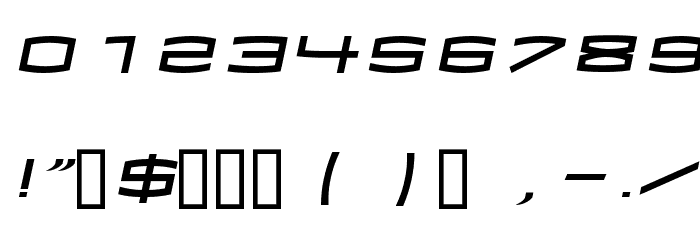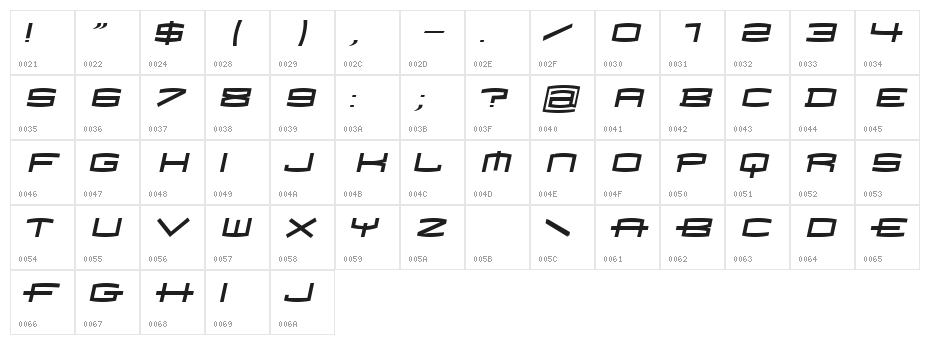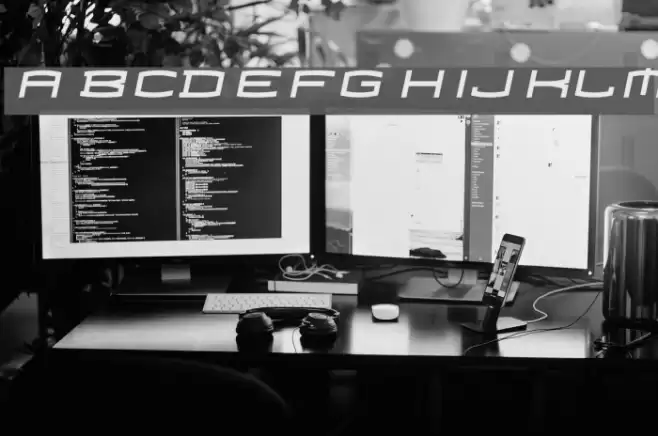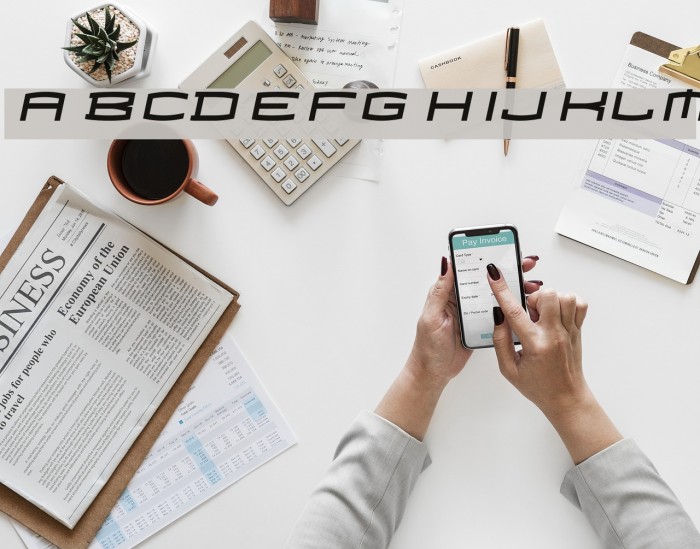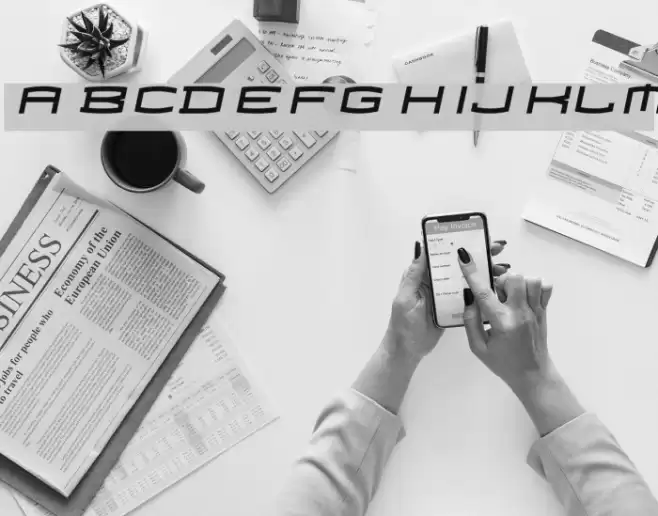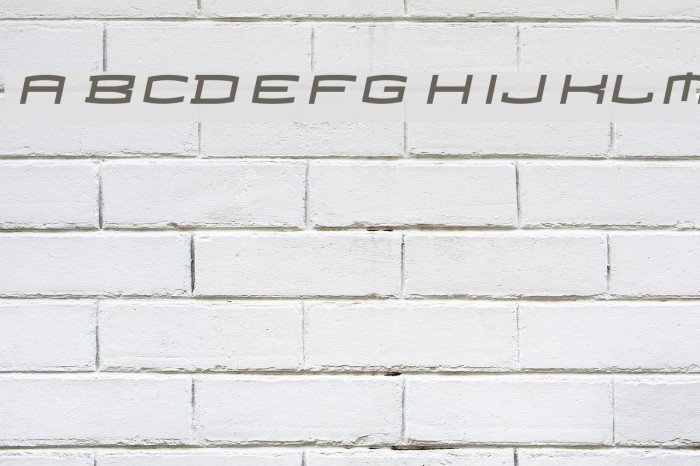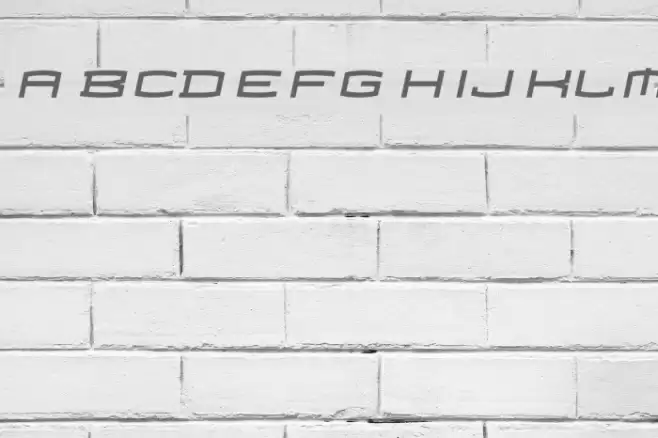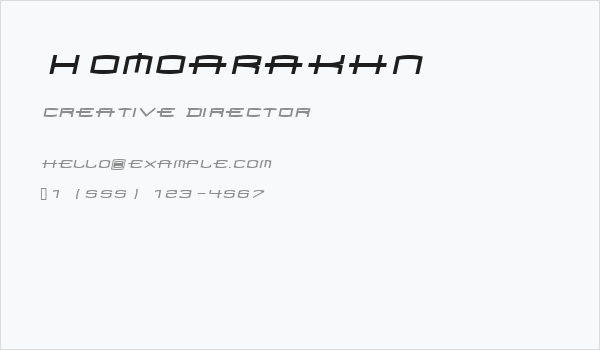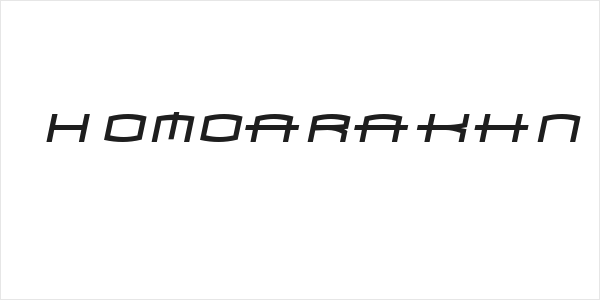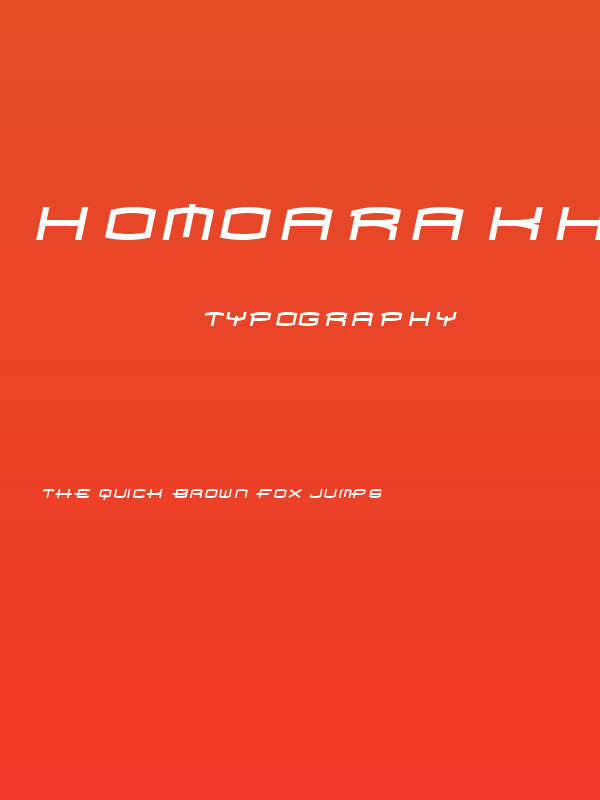
Homoarakhn Font
Homoarakhn Description
This font features a futuristic and angular design, characterized by its sharp edges and slanted orientation. The letters are slightly italicized, giving a sense of motion and speed. The uppercase and lowercase characters maintain a consistent style, with a geometric and somewhat mechanical appearance. The numerals and special characters follow the same design principles, ensuring uniformity across all glyphs. This font's unique style makes it stand out, ideal for projects that require a modern and edgy look.
| Proposed Projects | Ideal for sci-fi themed designs, technology branding, video game titles, and modern advertising. |